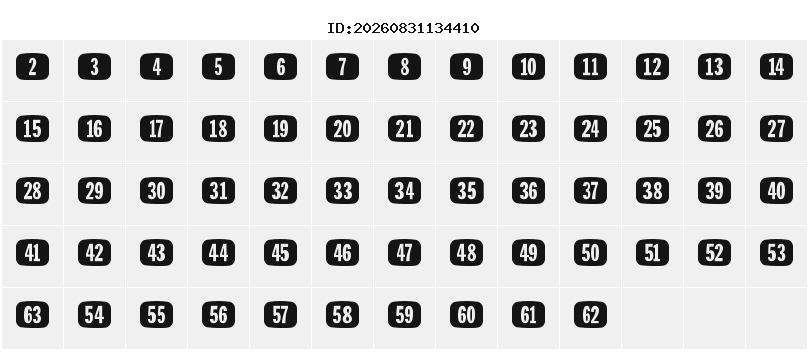
Tee Vee Set JL Preview
About Tee Vee Set JL.ttf
Tee Vee Set JL.ttf is a modern, elegant sans-serif font designed for ultimate readability and visual harmony. Perfect for branding, headlines, web design, and print materials.